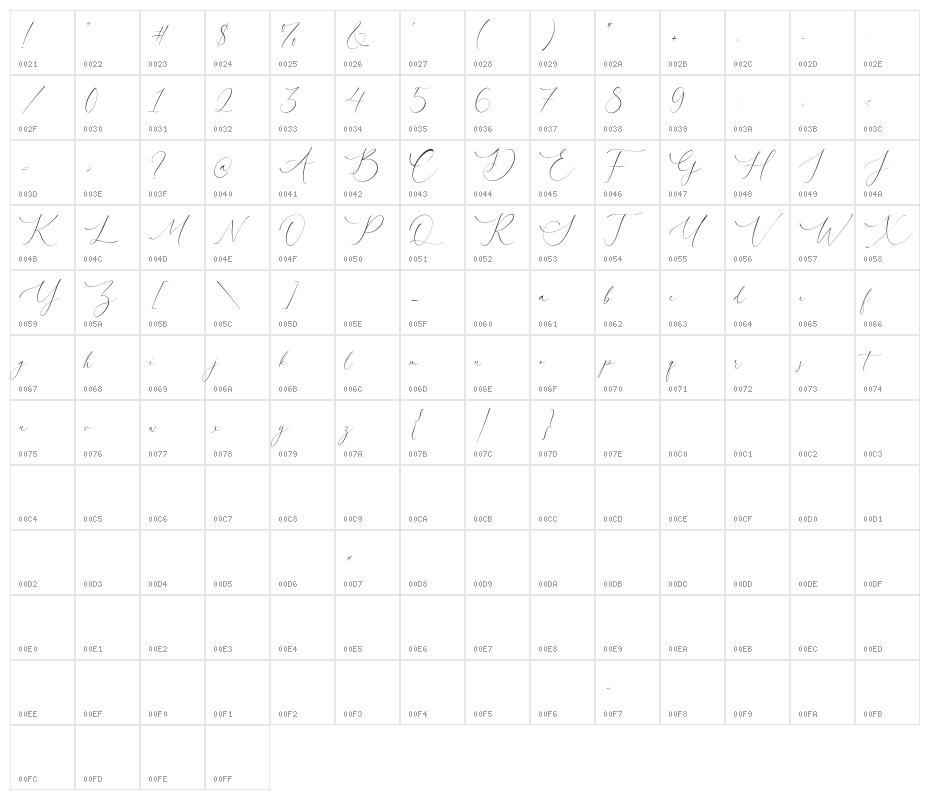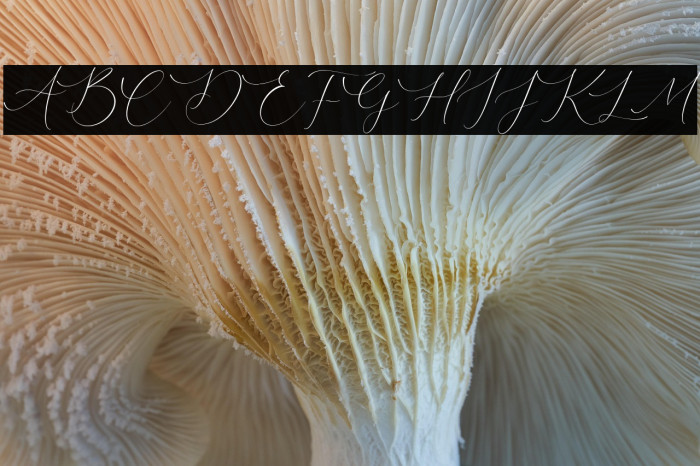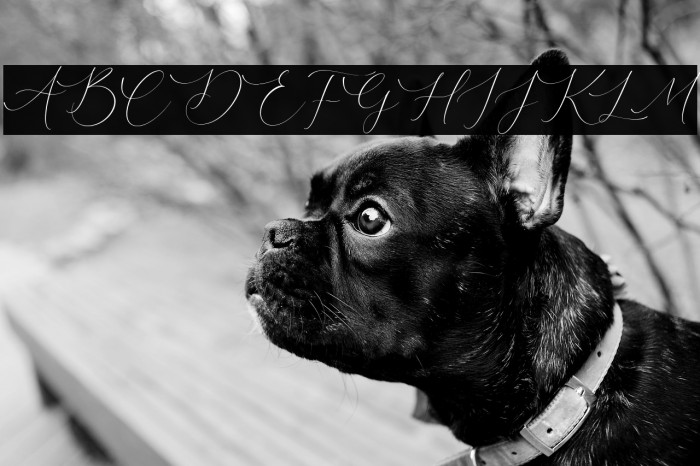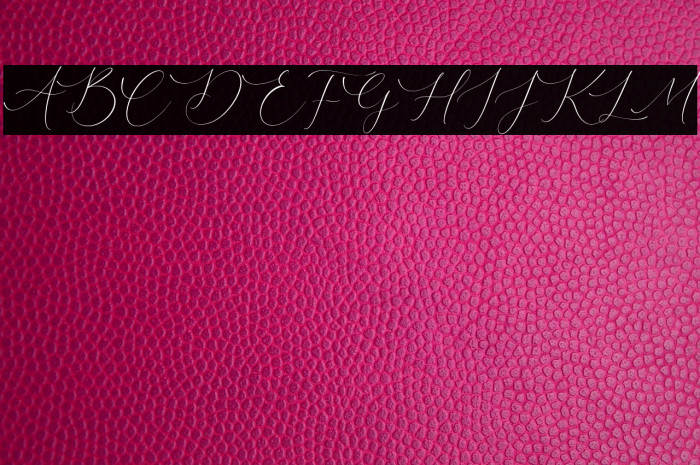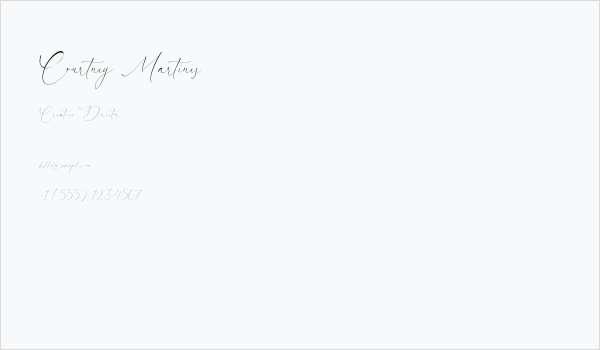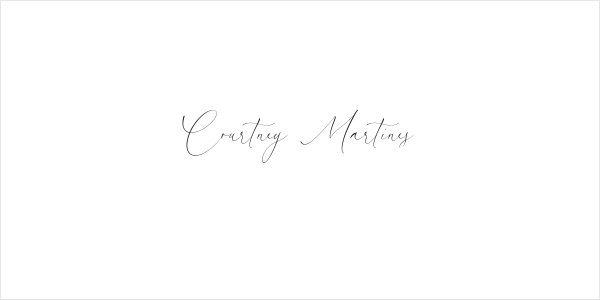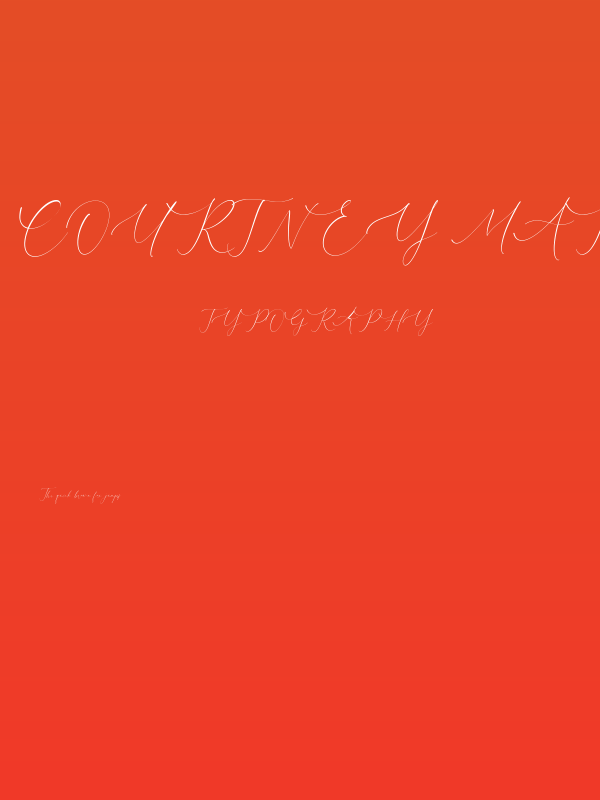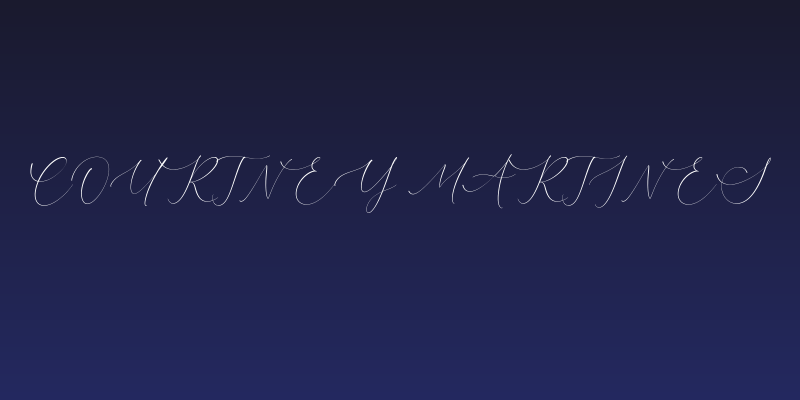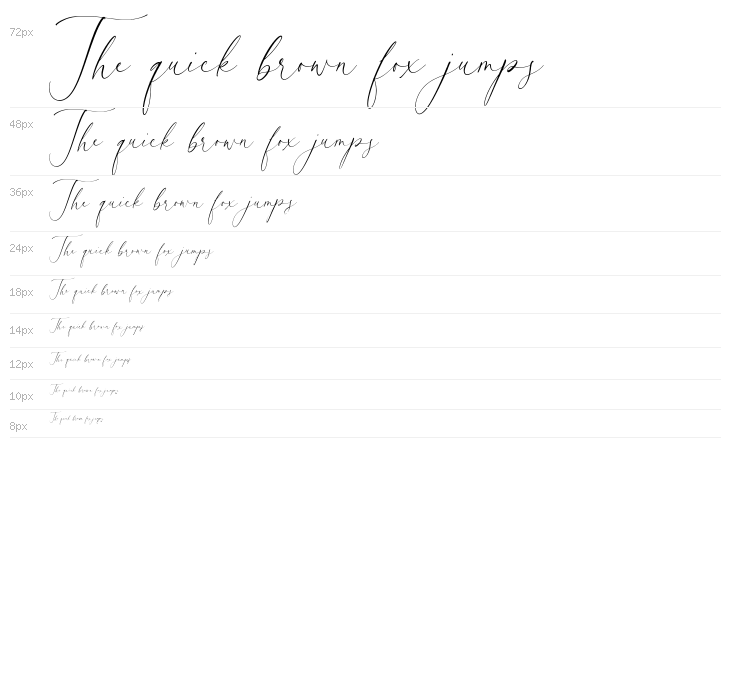
Courtney Martines Font
Courtney Martines Description
Elegant and flowing script font with delicate strokes and a handwritten appearance.
| Proposed Projects | Wedding invitations, greeting cards, elegant branding. |